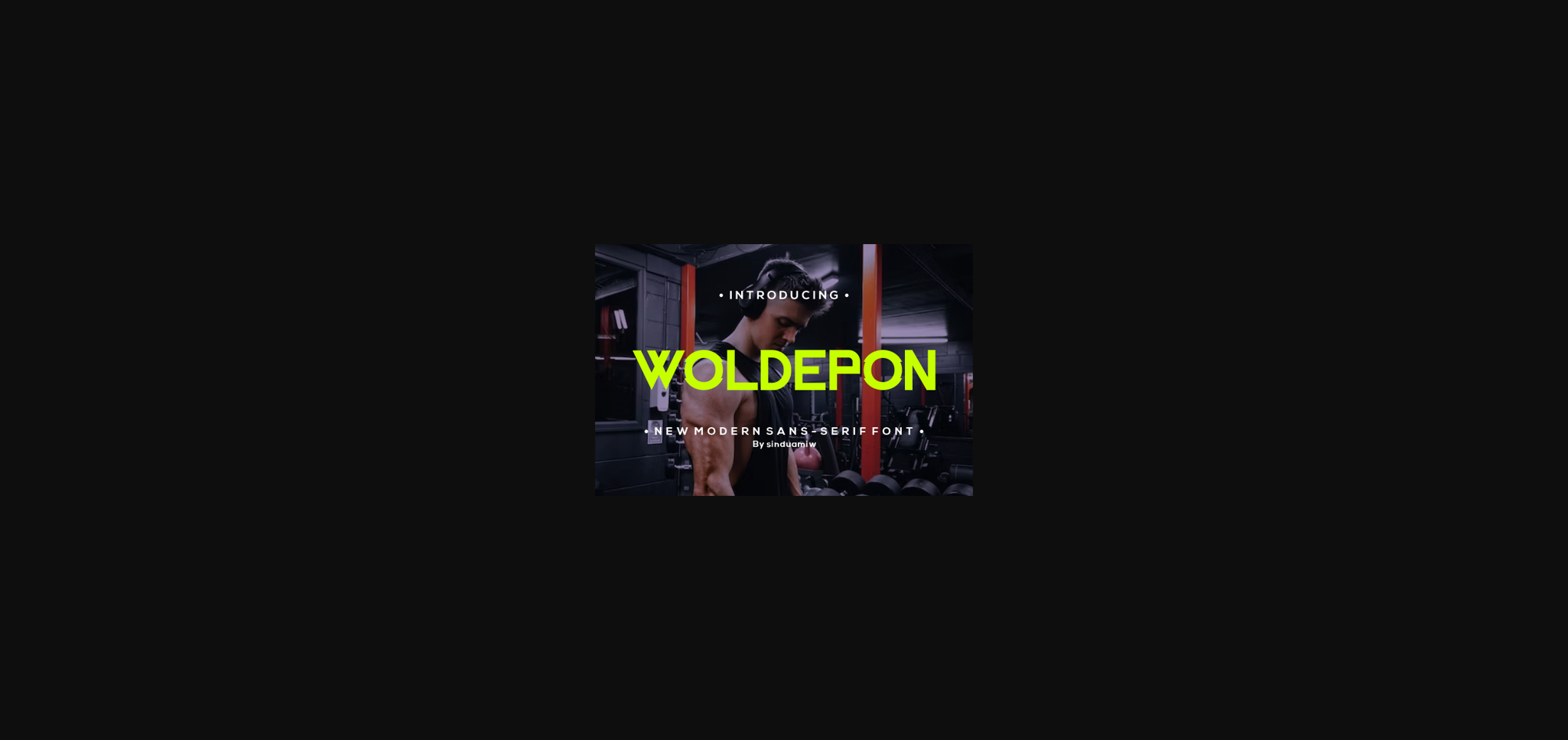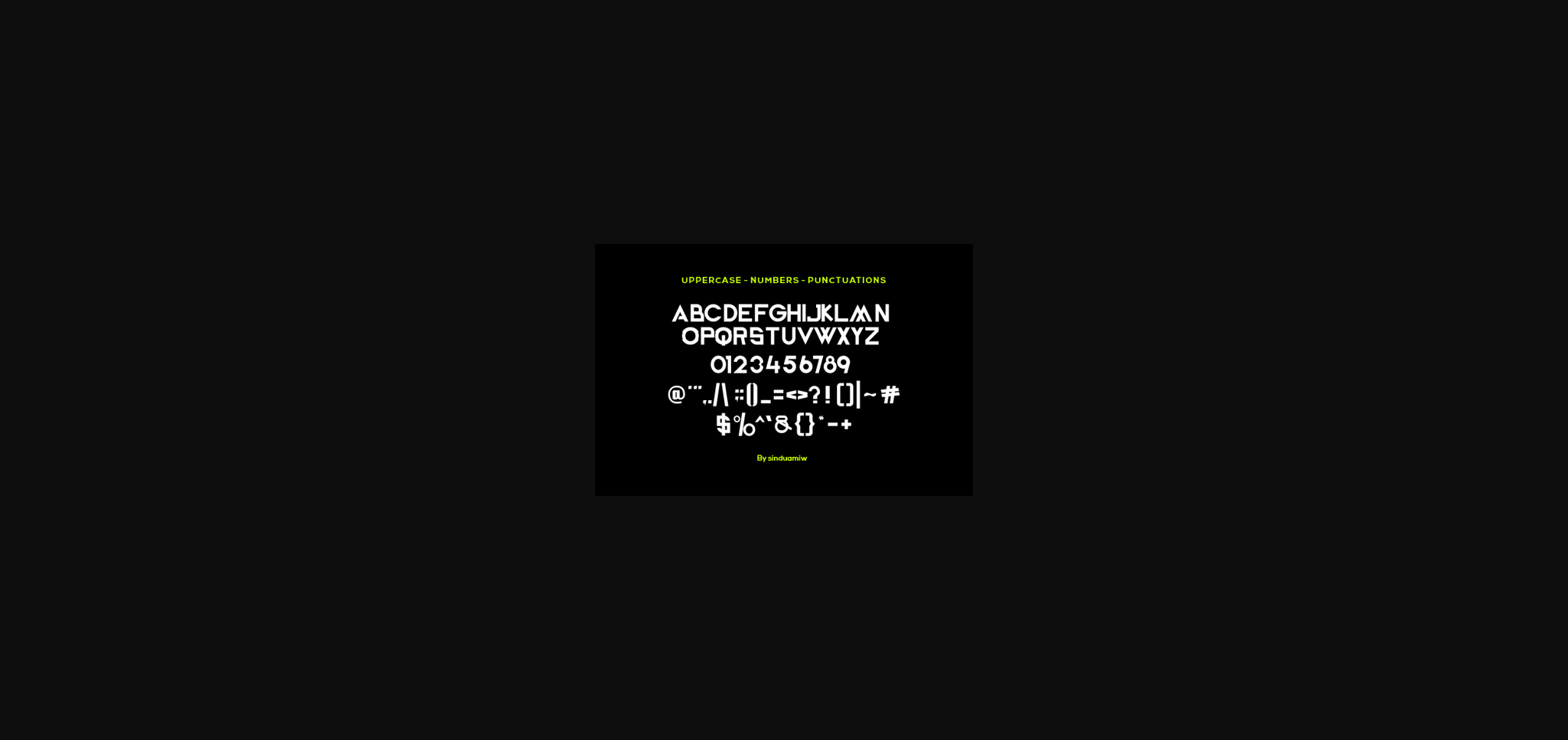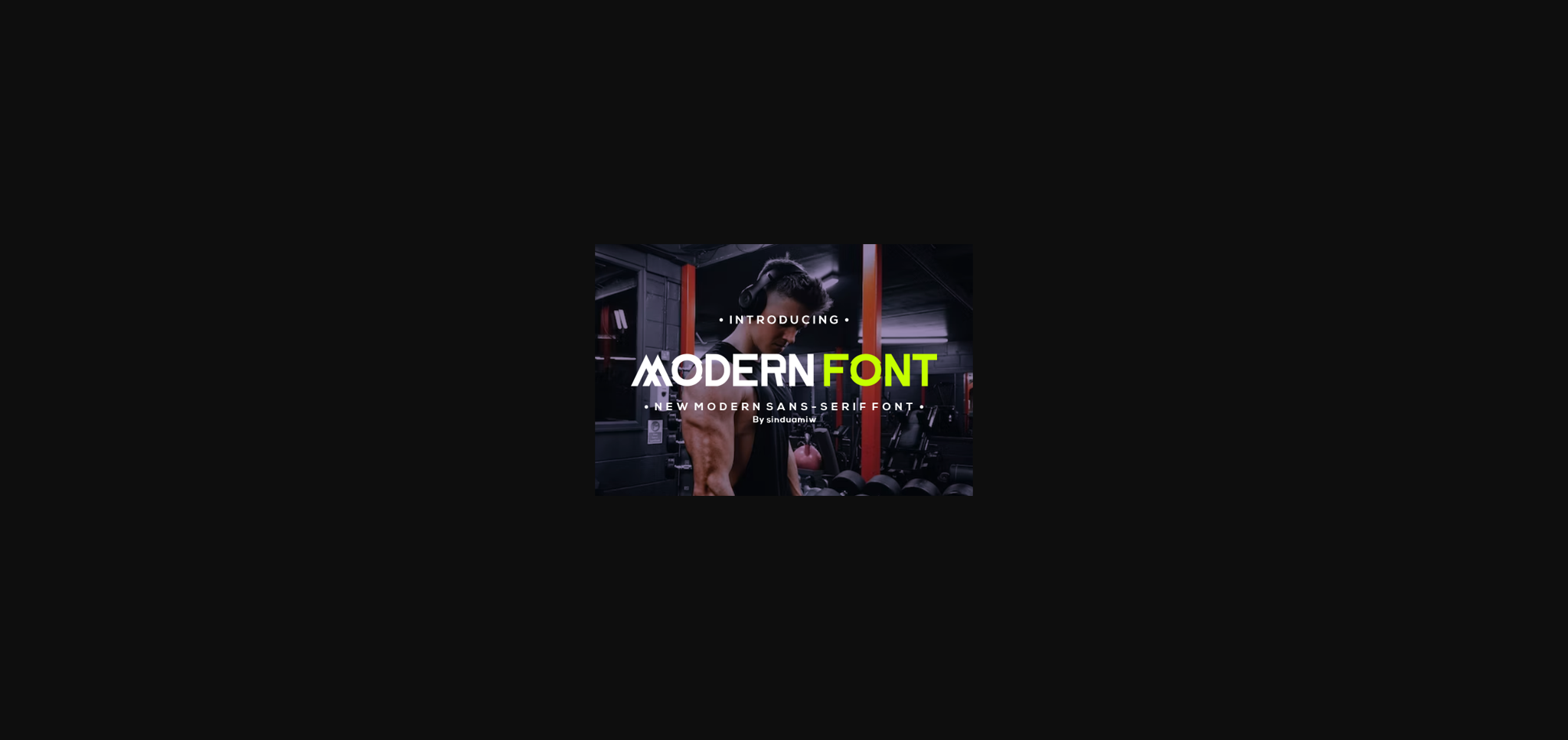
About Weldepon Font
Weldepon is a fresh and modern sans-serif font that effortlessly blends simplicity with contemporary style. Its clean lines and balanced proportions make it a versatile choice for a wide range of design projects. Whether you’re crafting sleek business presentations, stylish web content, or minimalist branding, Weldepon delivers a crisp and sophisticated look that elevates your visual communication. Embrace the modern aesthetic with this sleek and adaptable sans-serif typeface.